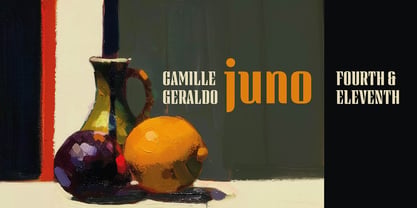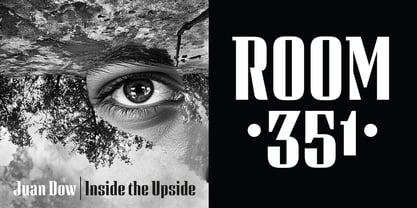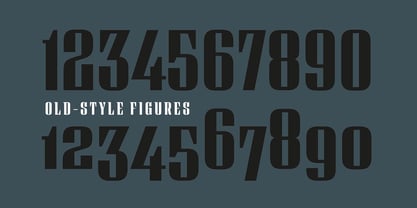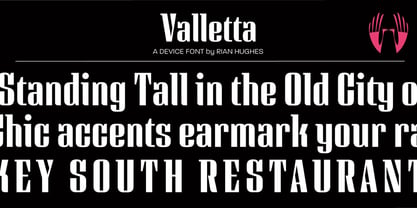
Valletta
The Valletta Font Family was designed by Rian Hughes and published by Device. Valletta contains 2 styles and family package options. More about this family
Valetta is an elegant, high-contrast condensed face with signature top-left slab serifs and triangular elements, as seen on the A, V and W. Its geometric construction and vertical black-white 'keyboard' rhythm avoid historical affectation. Named after the capital of Malta, whose narrow streets and tall buildings were an inspiration, it evokes a crisp modernity with unusual sophistication and grace, looking especially refined in letterspaced settings.